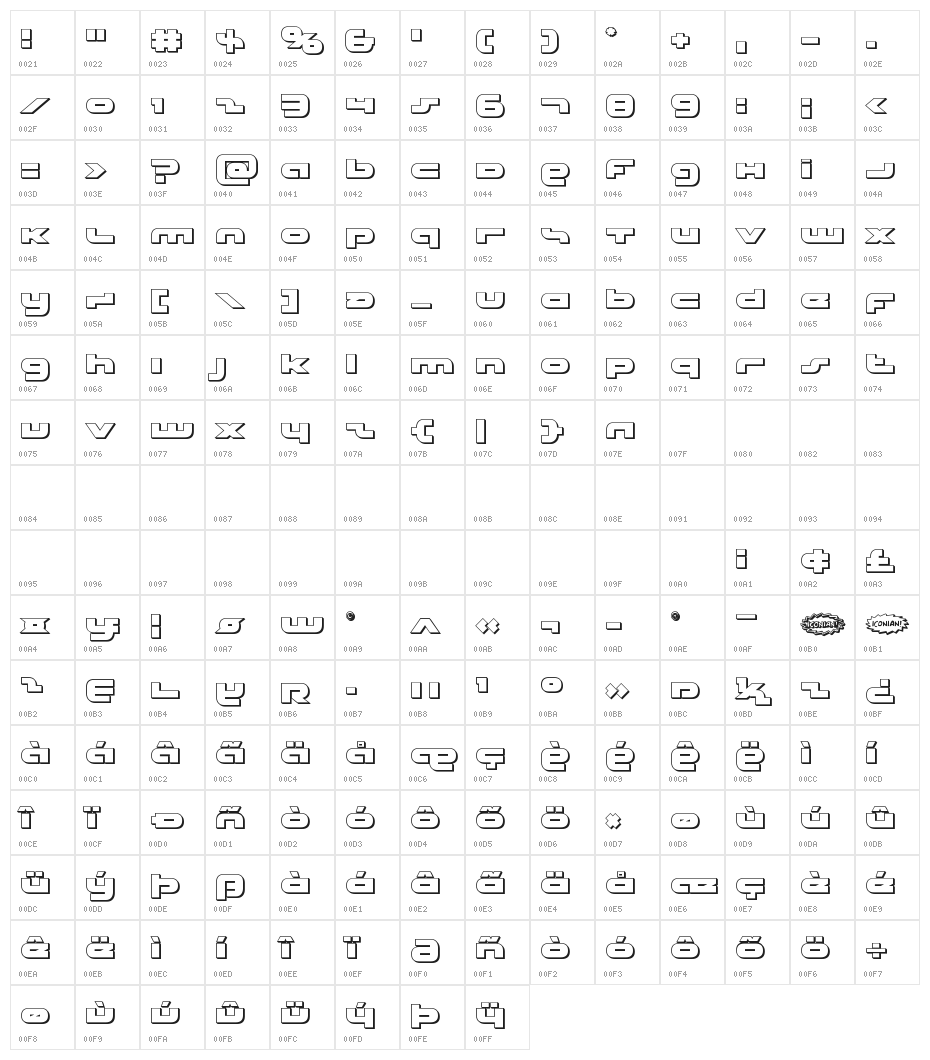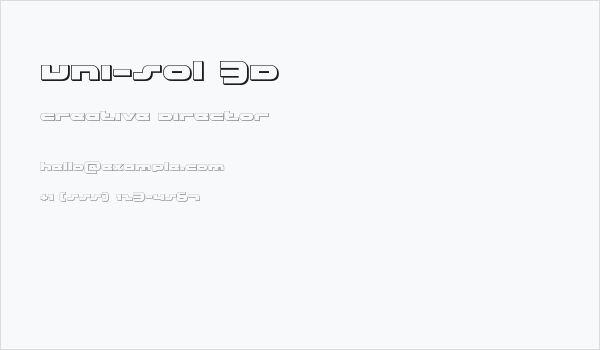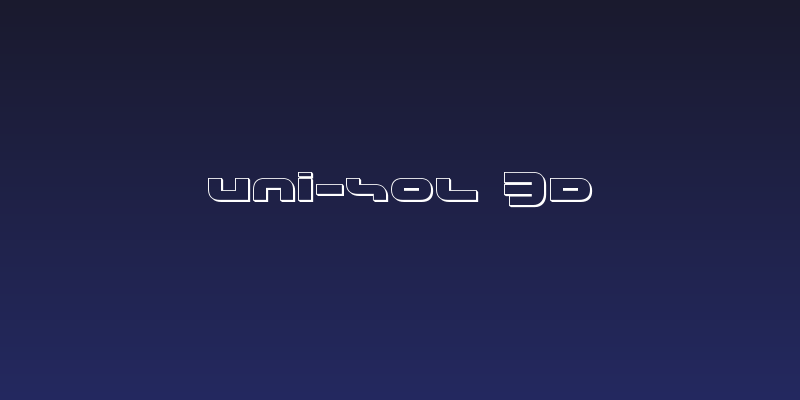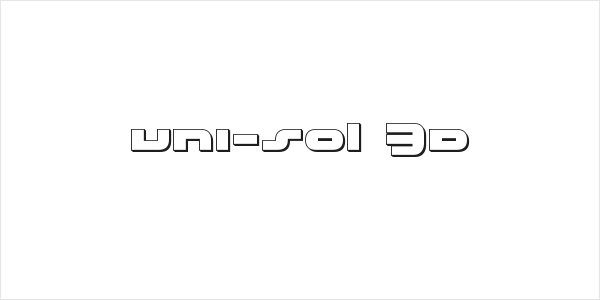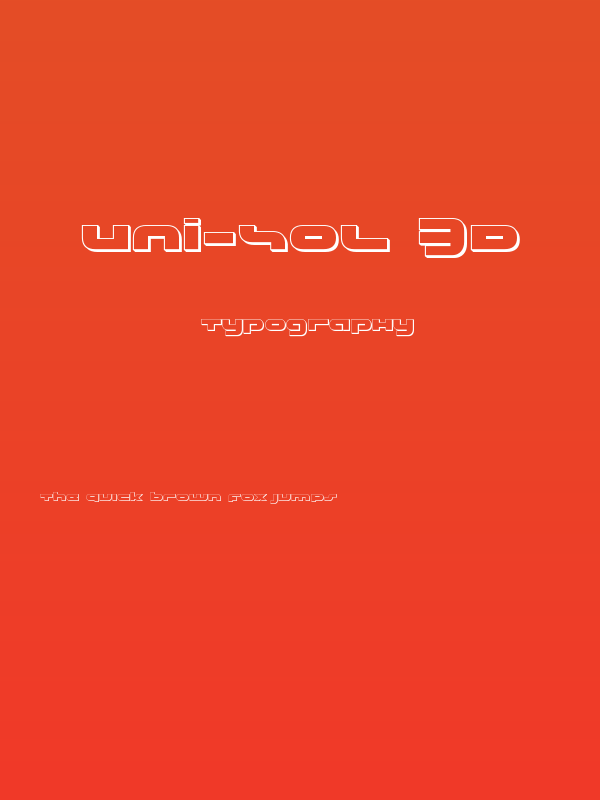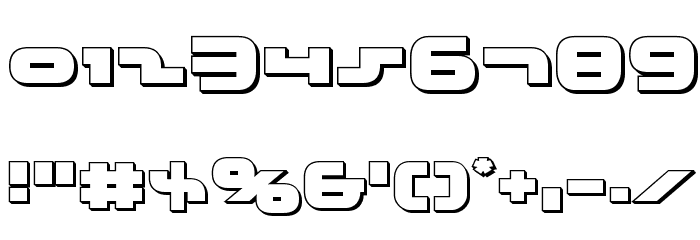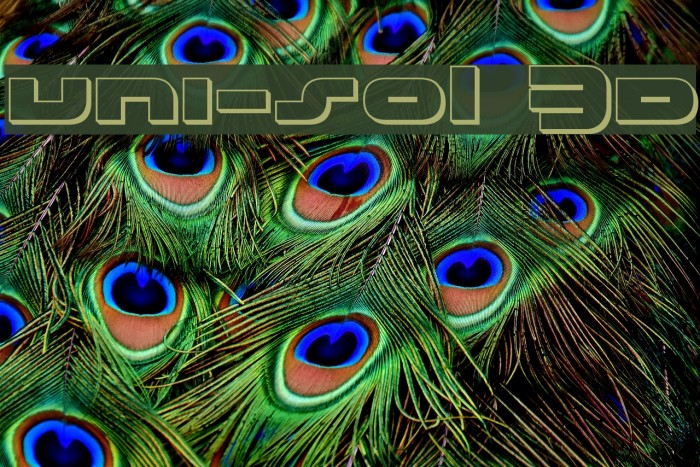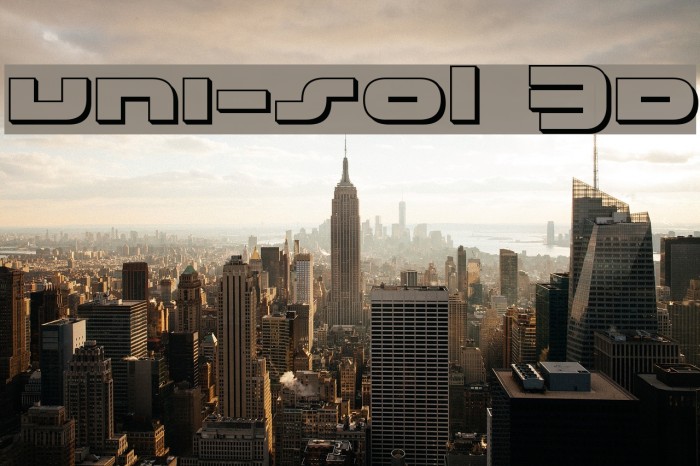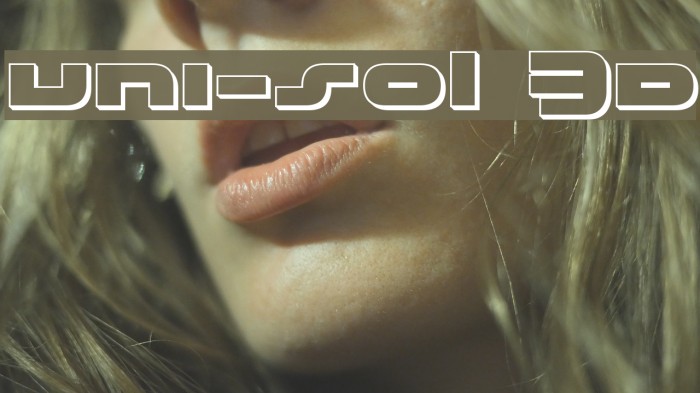
uni-sol 3D Font
uni-sol 3D Description
This font features a bold, futuristic design with a three-dimensional effect that gives it a unique, eye-catching appearance. The characters are outlined, creating a hollow look that enhances the 3D illusion. The geometric shapes and clean lines contribute to a modern and tech-inspired aesthetic. Each letter is distinct, with sharp angles and a consistent stroke width that maintains readability while adding a decorative flair. The numbers and special characters follow the same design principles, ensuring a cohesive look across all glyphs.
| Proposed Projects | Ideal for technology-themed projects, sci-fi posters, video game titles, and branding that requires a modern, edgy look. |